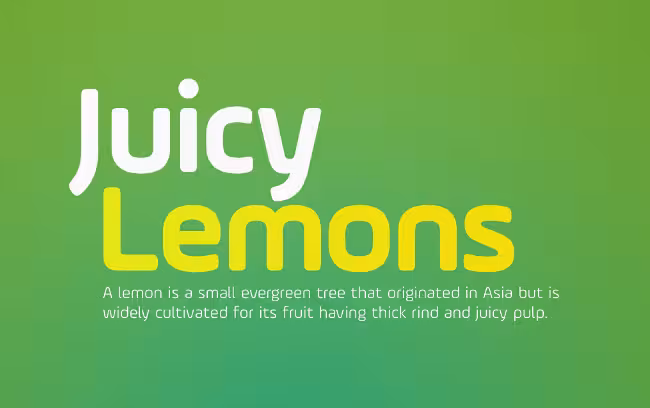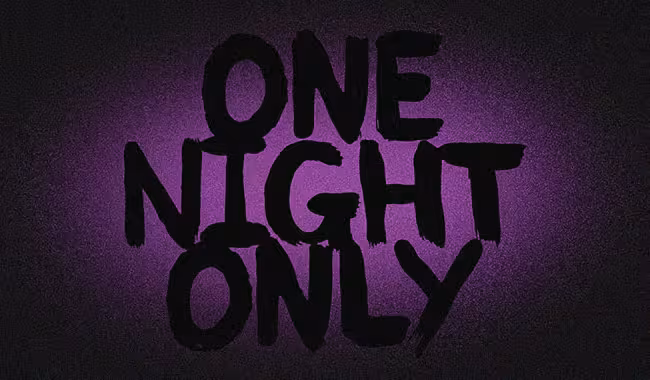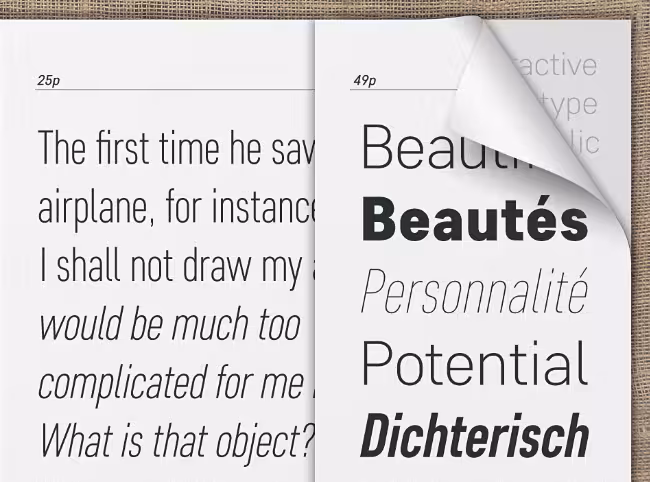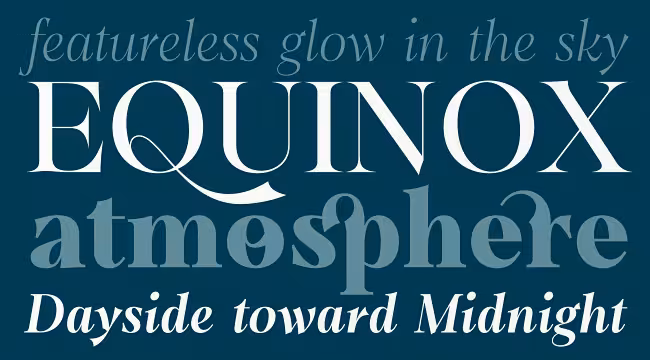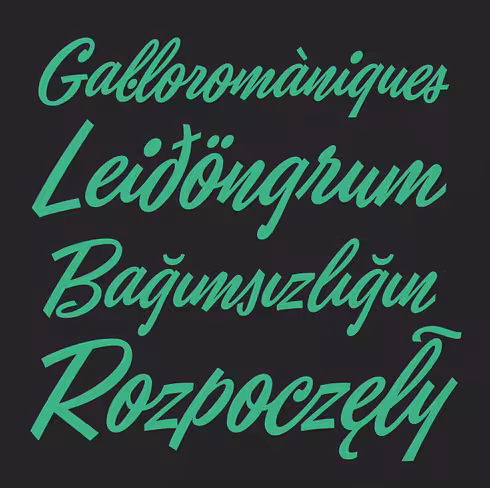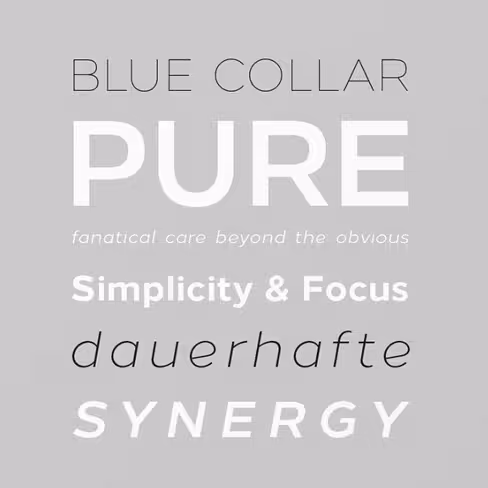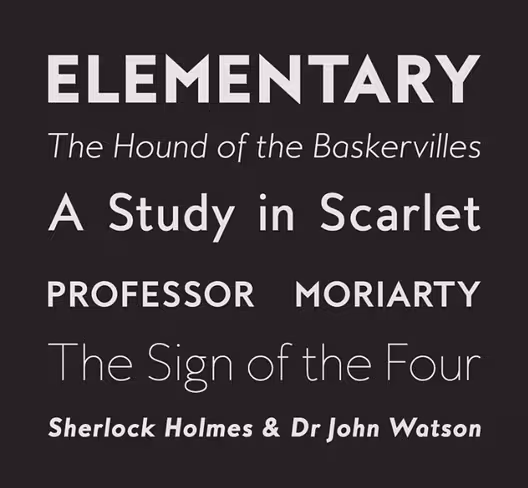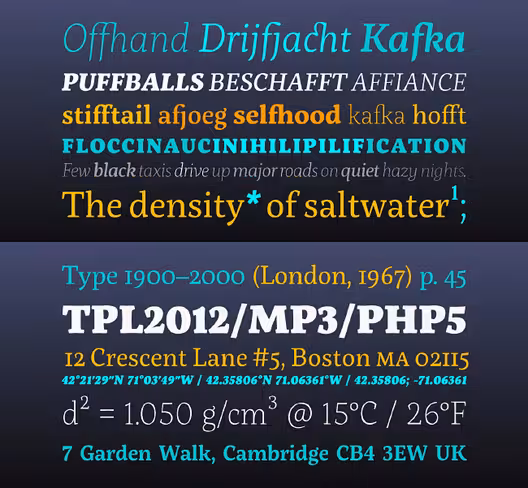
25 of the best typefaces from July 2014
Here are 25 of our favorite typefaces released last month. Do you agree with our picks?
Cultivated Mind: True North
True North is a vintage inspired typeface with 16 styles and a monoline script.
Zeune Ink: Wallington
Wallington is a decorative serif embodying vintage & elegant curves with functional structure.
Process Type Foundry: Pique
Pique is a fast moving brush script.
Webalys: Minicons
Minicons contains 1500 minimal vector icons.
Dada Studio: Servus Slab
Servus Slab consists of nine weights with matching italics.
Soneri Type: Ample Soft
Ample Soft is monolinear and a bit squarish in nature.
Village: Fort Condensed
Fort Condensed has a flexible voice and durable performance.
The Northern Block: Loew
Loew is a versatile sans with simple and honest geometry.
Mostardesign: Filson
Filson is a geometric sans serif family with versatility in mind.
Font Bureau: Apres
A clear and comfortable geometric typeface.
Andinistas: Nemocón
Nemocón is a display font family with over 2200 glyphs distributed in six files.
Sudtipos: Horizontes Script
Horizontes Script – finding a balance between spontaneity, elegance and beauty.
Commercial Type: Marr Sans
Like an eccentric British uncle to Morris Fuller Benton’s Franklin and News Gothics.
Latinotype: Grota Sans
Grota Sans is a grotesque typeface with a latin spirit.
Borutta: Adagio Sans
Adagio Sans is inspired by classical English typefaces.
Dai Foldes: Globe Script
A casual semi-connected script.
Typomancer: Dawnora
Dawnora – a spirited serif.
Type Dynamic: Sailec
Sailec is a clean, neutral typeface.
Typonine: Identitet
Identitet is a system designed to work together as a unified whole.
MB Creative: MB Empire